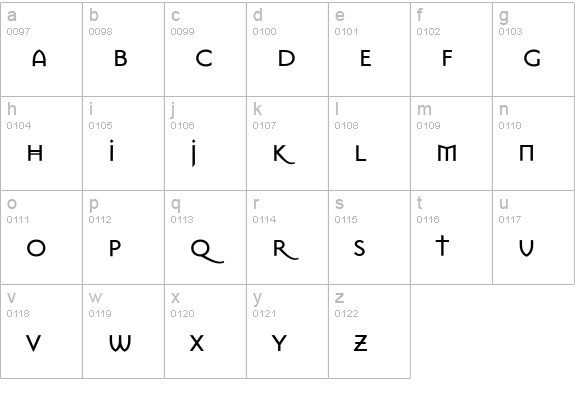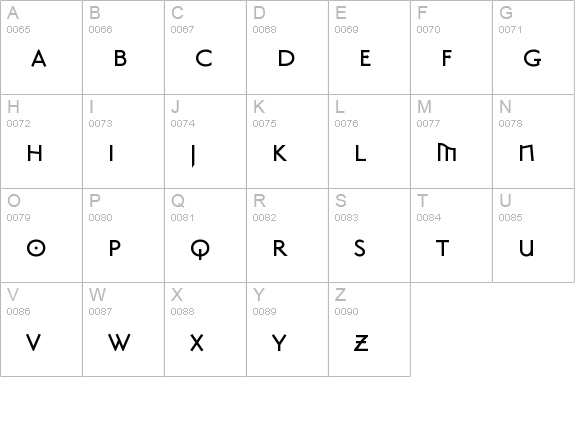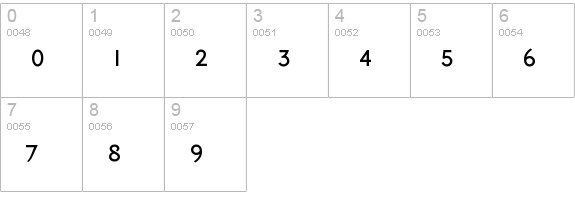
MasonSansSuper Font Details
Introducing MasonSansSuper, a sleek and modern font that will elevate your designs to new heights. This versatile typeface effortlessly combines clean lines with a touch of sophistication, making it perfect for a wide range of creative projects. MasonSansSuper offers a unique combination of elegance and simplicity, making it suitable for both professional and personal use. Whether you're designing a logo, creating a website, or crafting eye-catching social media posts, this font is sure to captivate your audience. With its wide range of weights and styles, MasonSansSuper gives you the flexibility to create stunning typographic compositions. From bold headlines to delicate body text, this font has you covered. One of the best things about MasonSansSuper is that it is completely free. Yes, you read that right! This amazing font is freely available to download at FontsMarket.com, a trusted source for high-quality fonts. Now you can enhance your designs without breaking the bank. So why wait? Download MasonSansSuper today and unlock the potential of your creative projects. With its sleek design, versatility, and the fact that it's free, this font is a must-have for any designer or typographer. Don't miss out on this opportunity to take your designs to the next level. Get MasonSansSuper now and let your creativity soar!